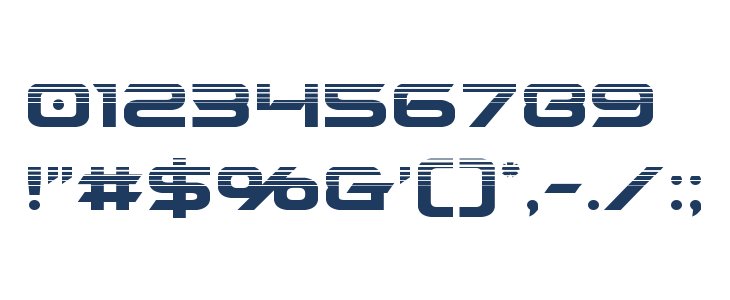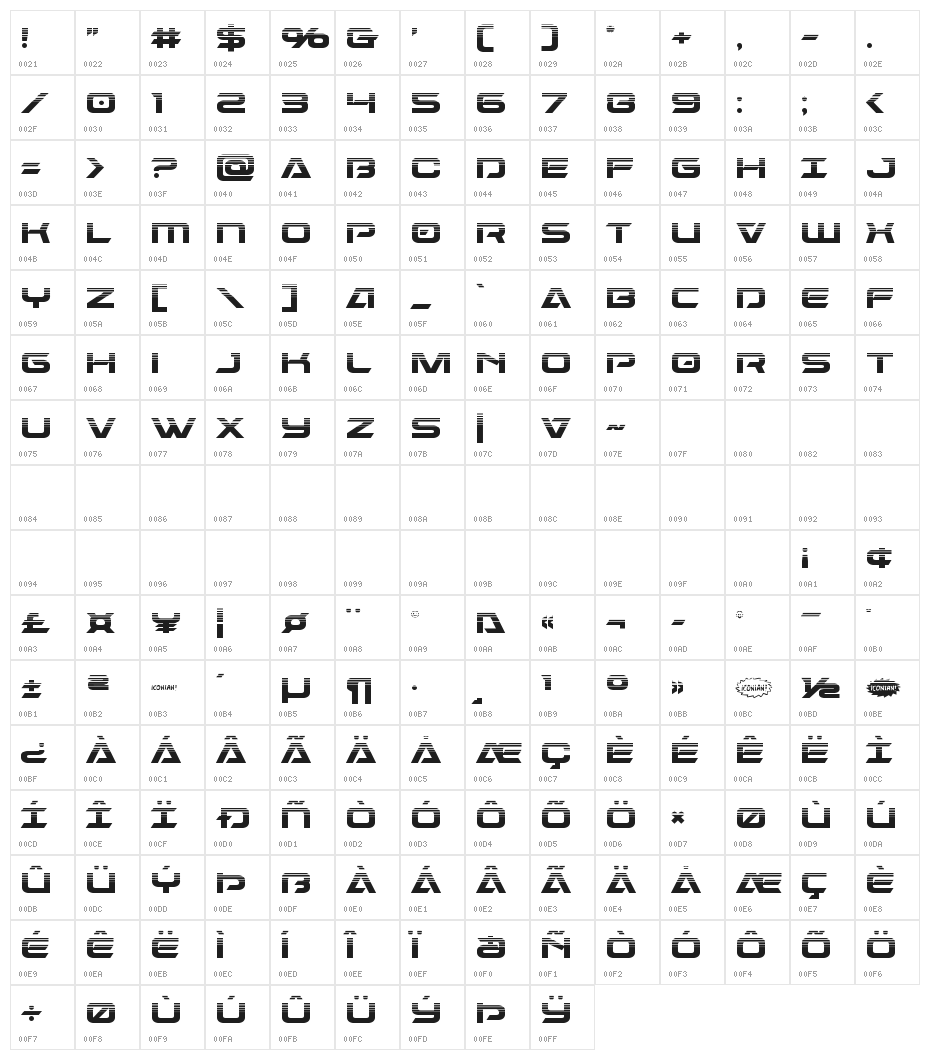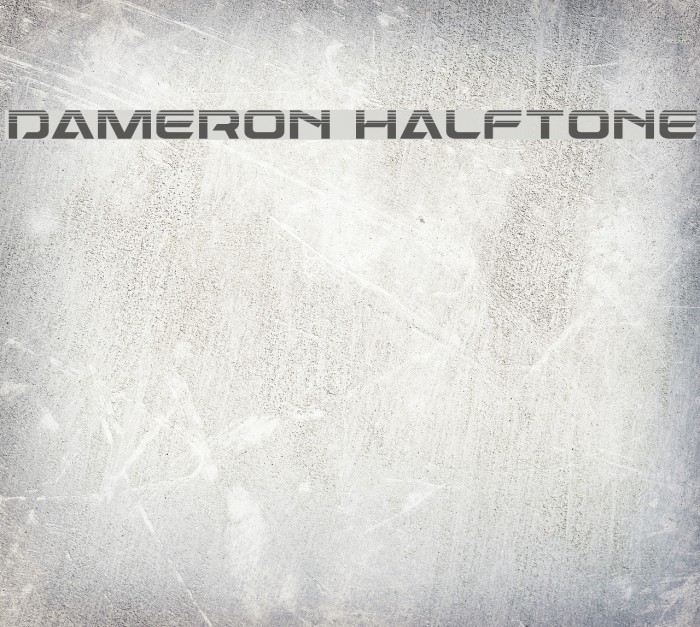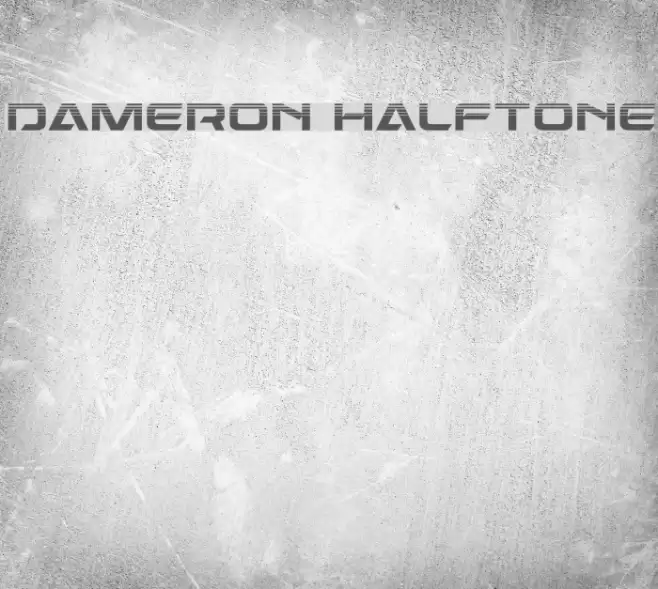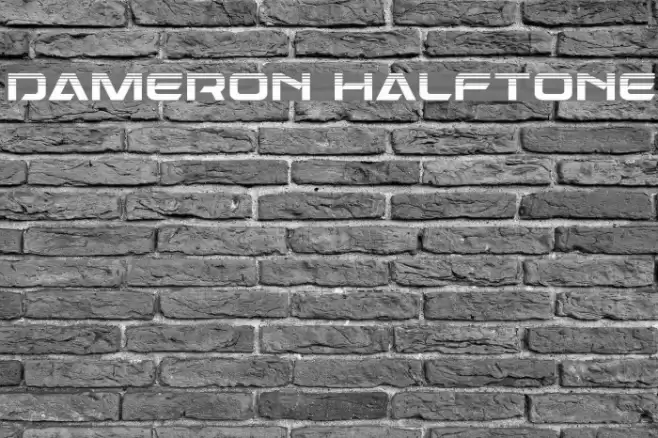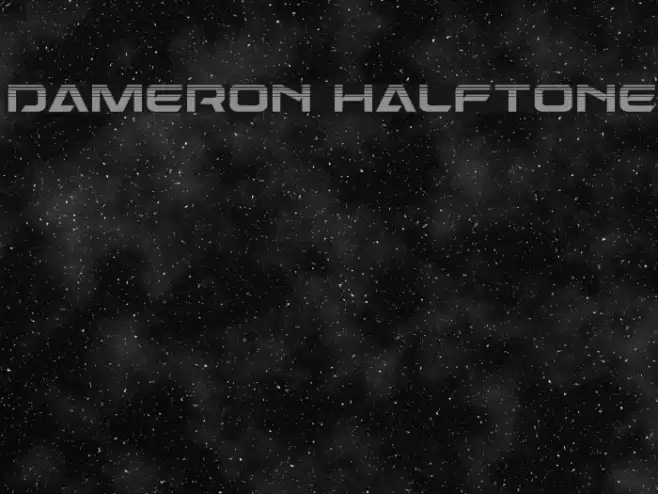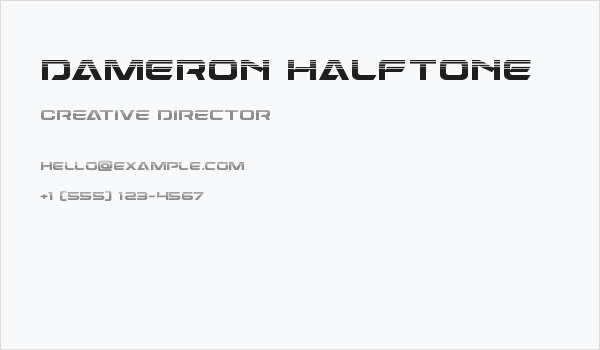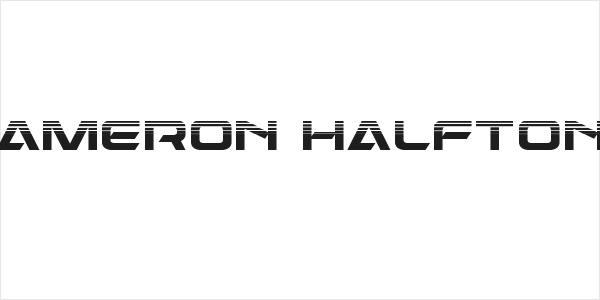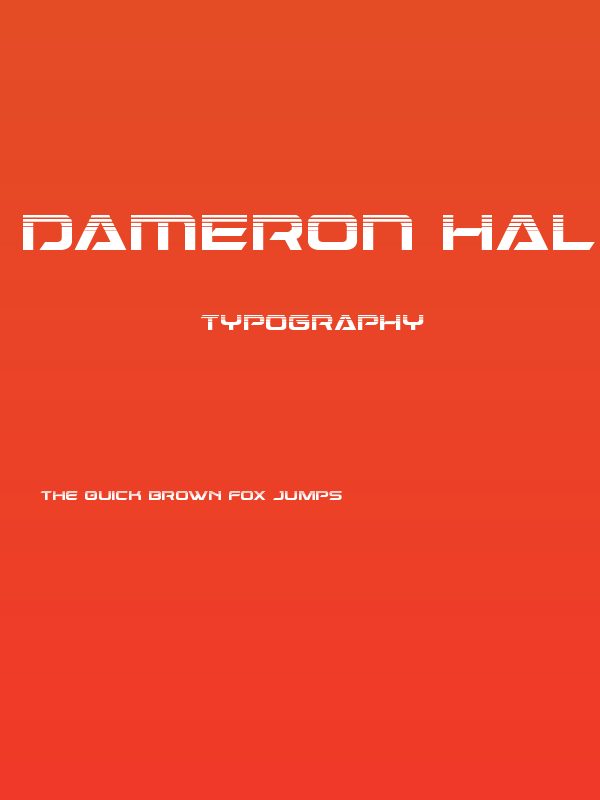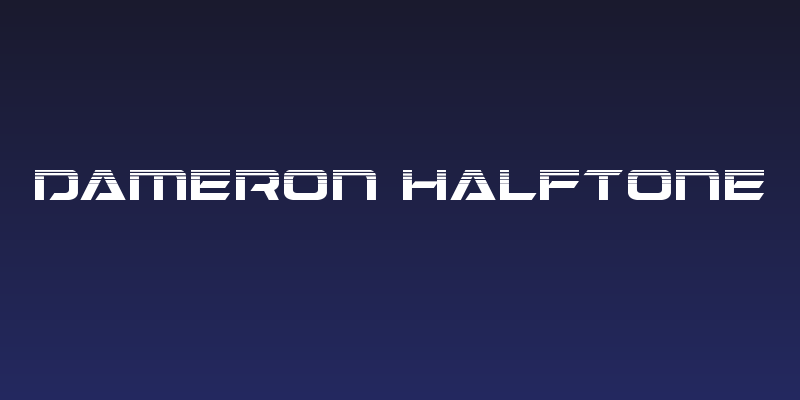
Dameron Halftone Font
Dameron Halftone Description
This font features a bold, futuristic design with a halftone effect that gives it a unique, digital appearance. The characters are constructed with a series of horizontal lines that create a sense of movement and modernity. Its geometric shapes and sharp angles contribute to a tech-inspired aesthetic, making it ideal for projects that require a cutting-edge look. The uppercase and lowercase letters maintain a consistent style, while the numbers and special characters complement the overall design. This font is perfect for creating eye-catching headlines, posters, and branding materials that aim to stand out with a modern, innovative flair.
| Proposed Projects | Ideal for tech branding, digital media, futuristic posters, and innovative product packaging. |